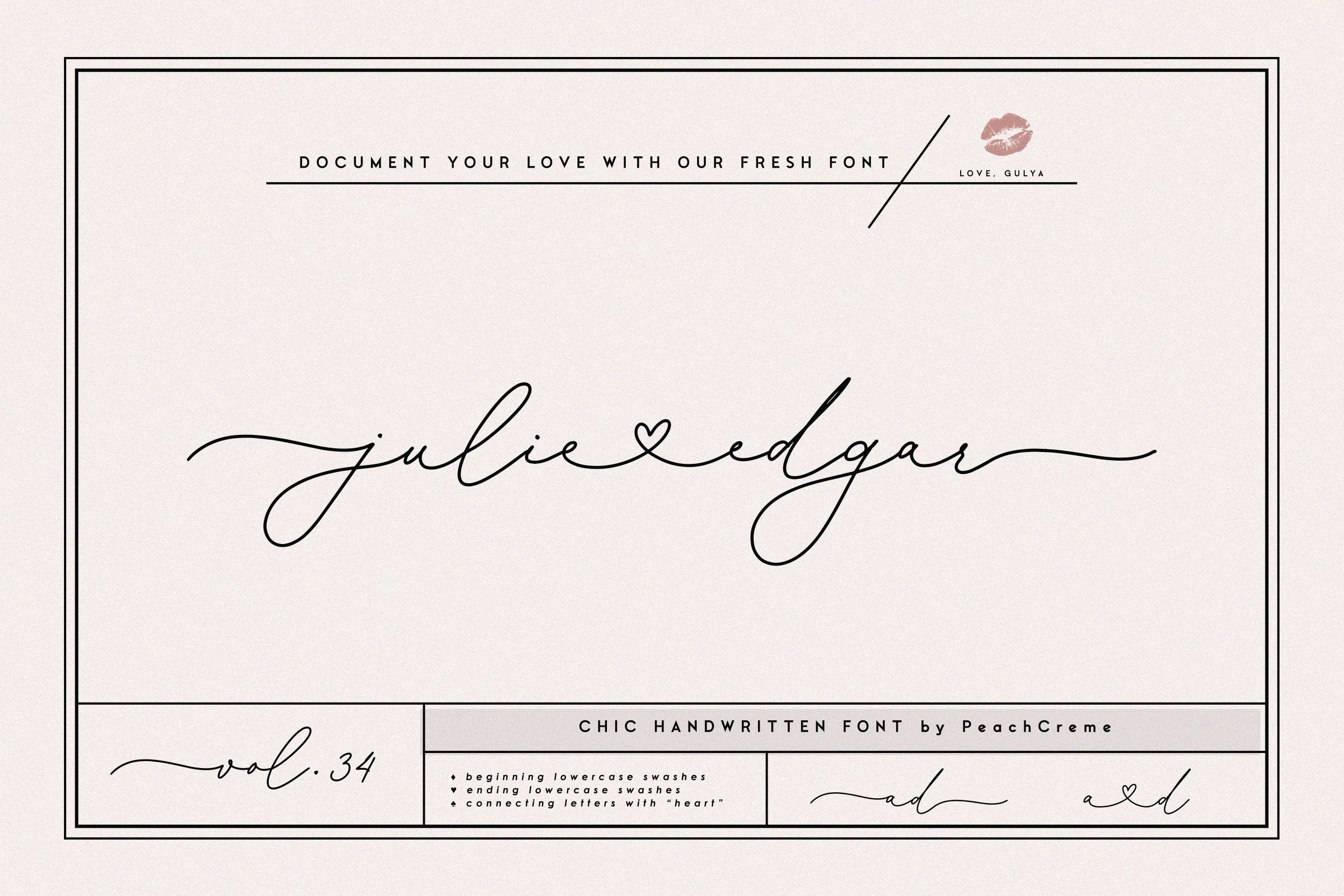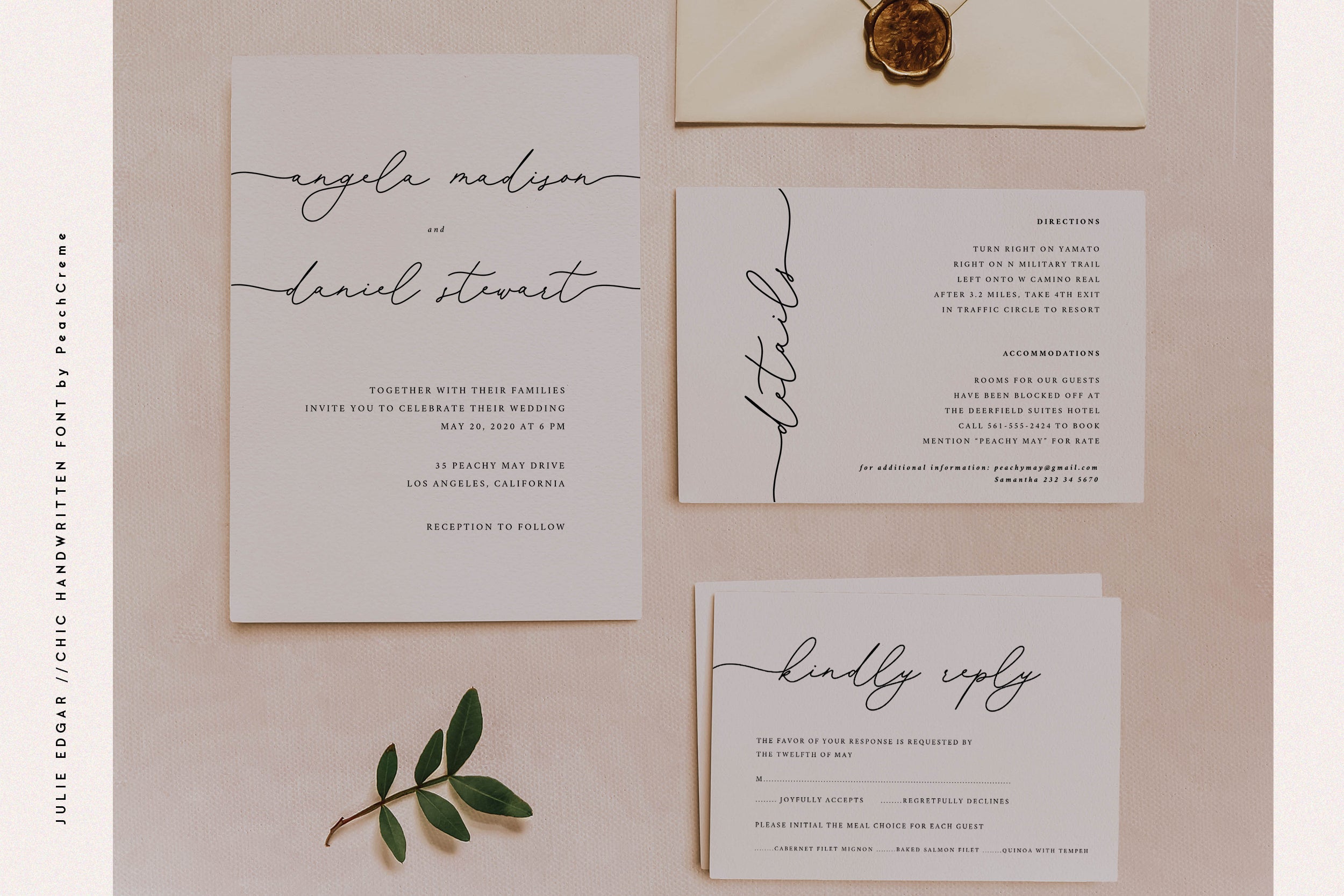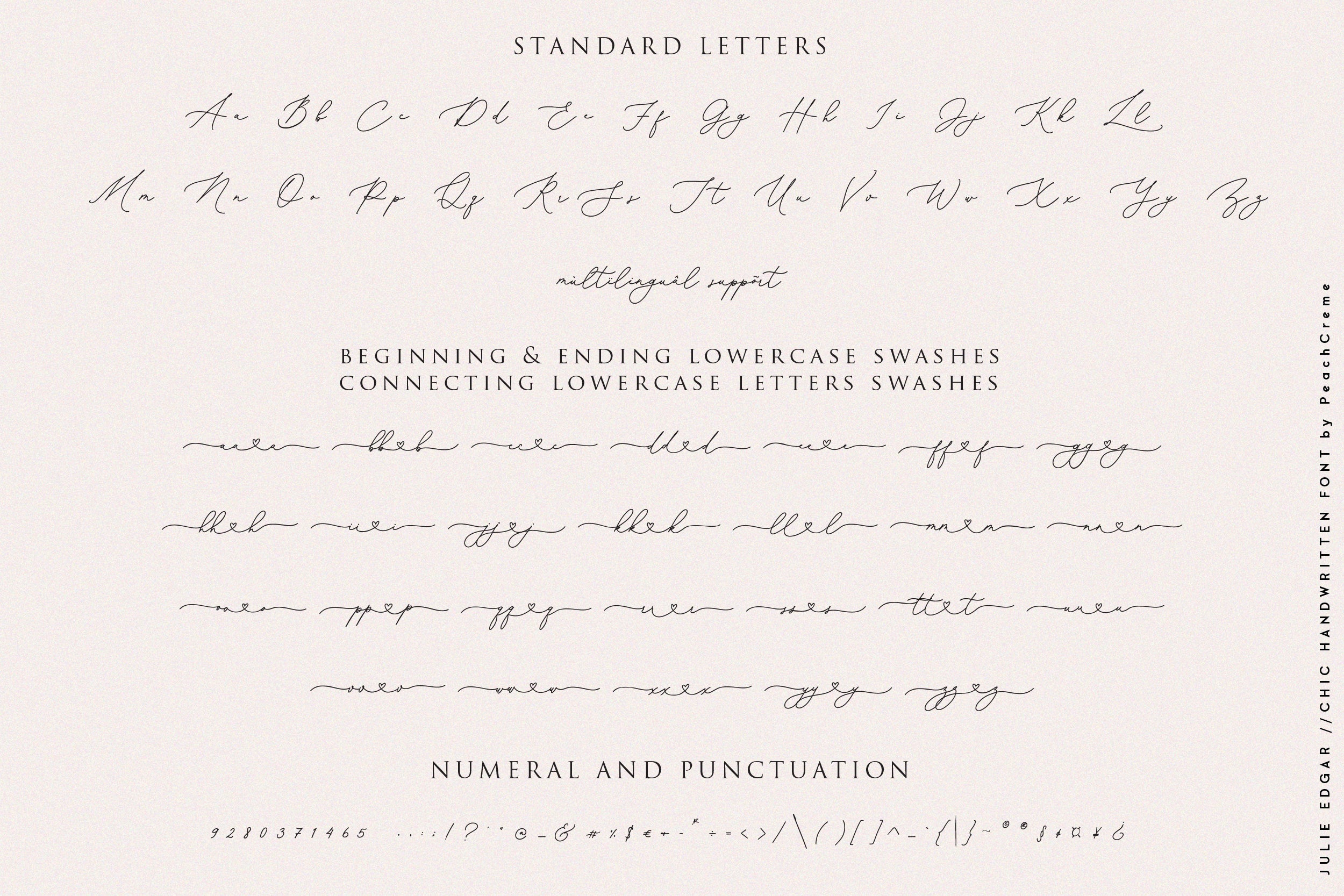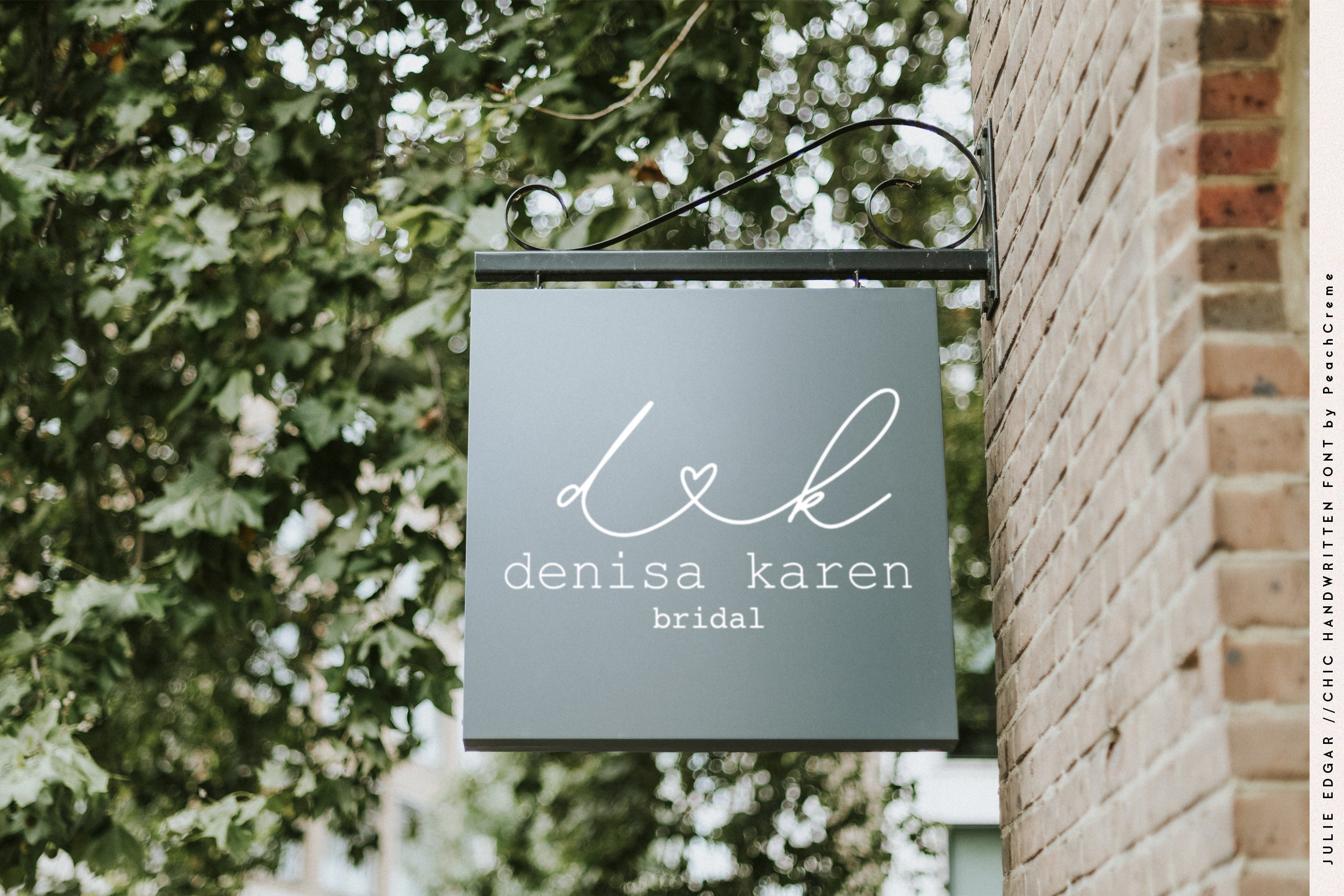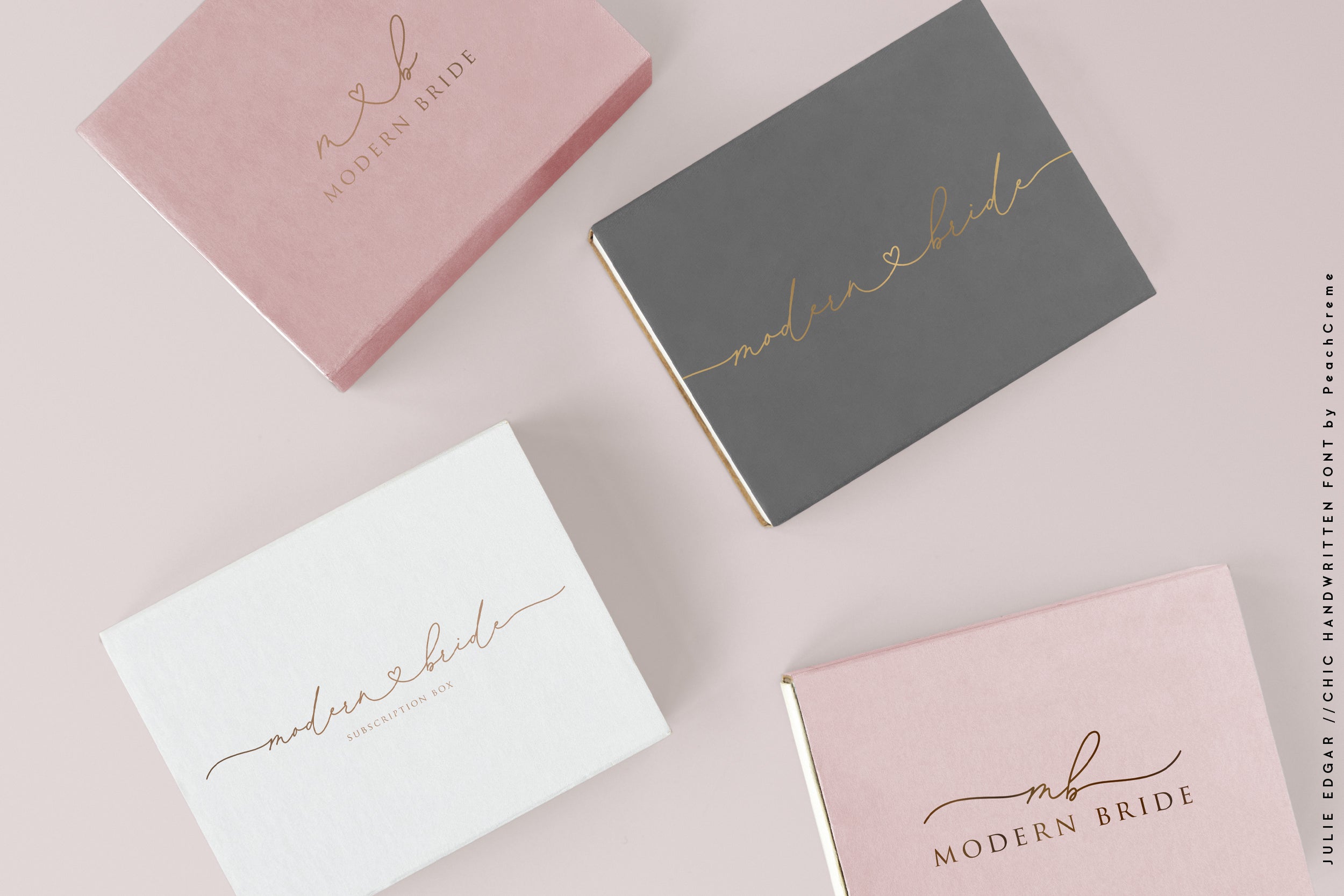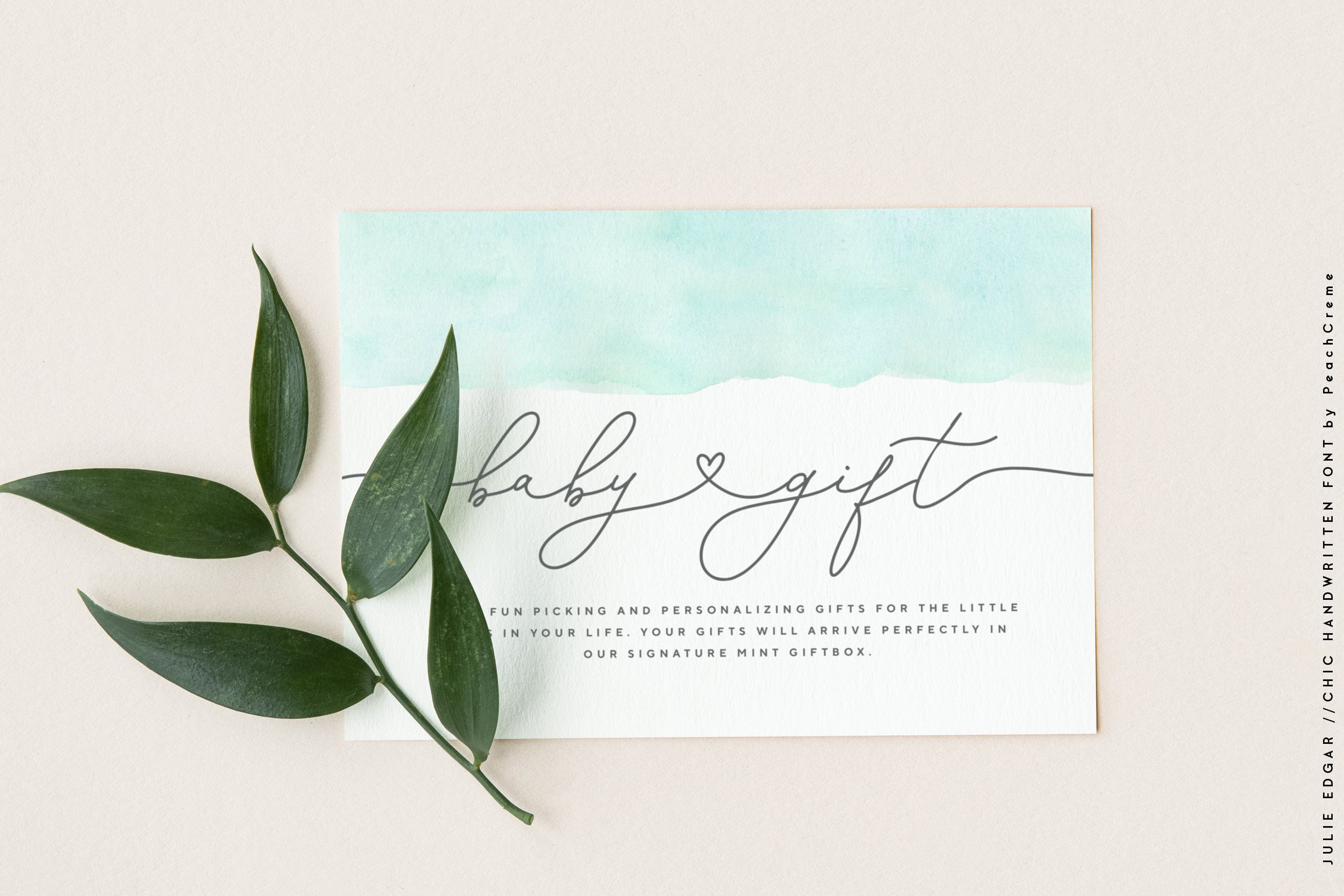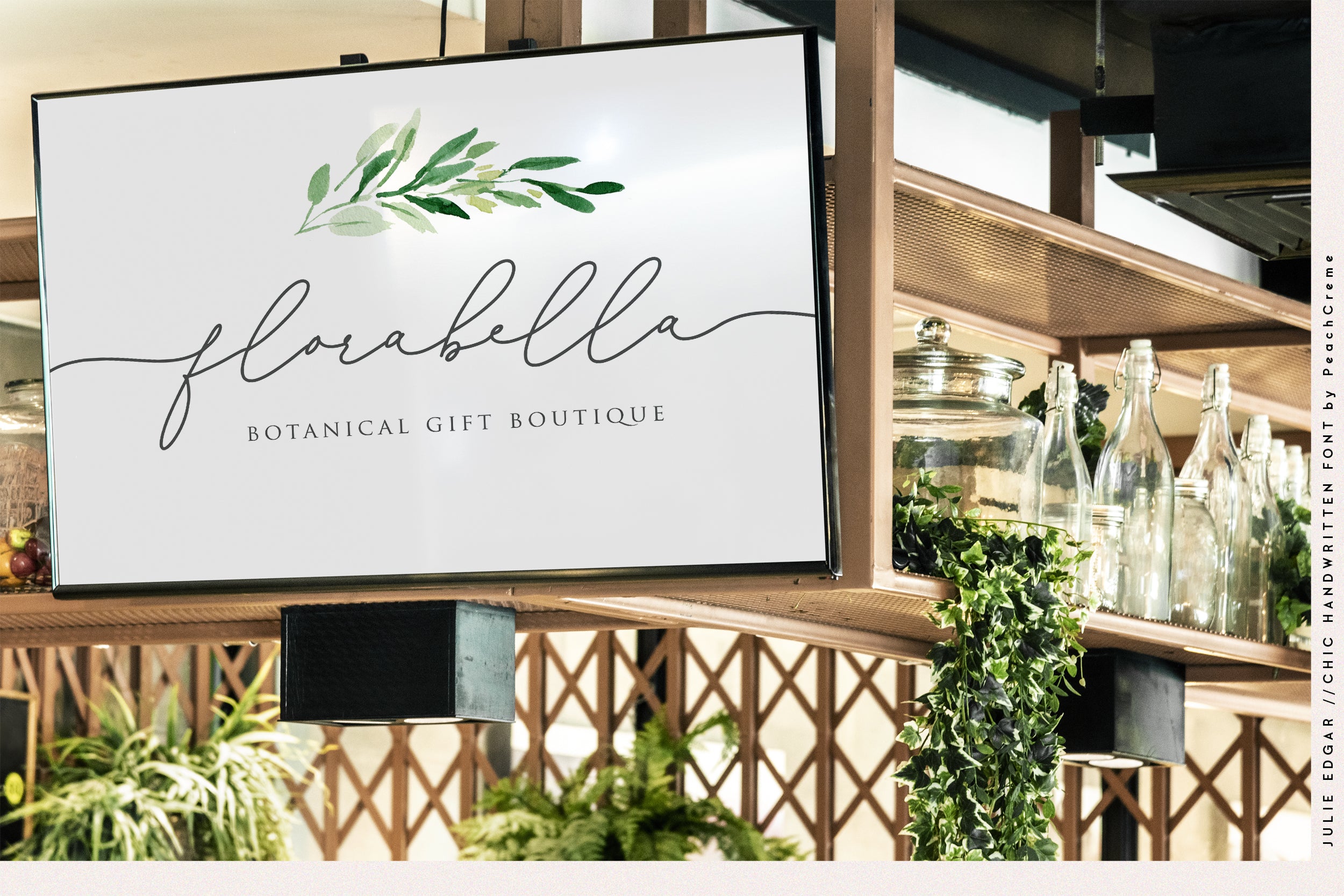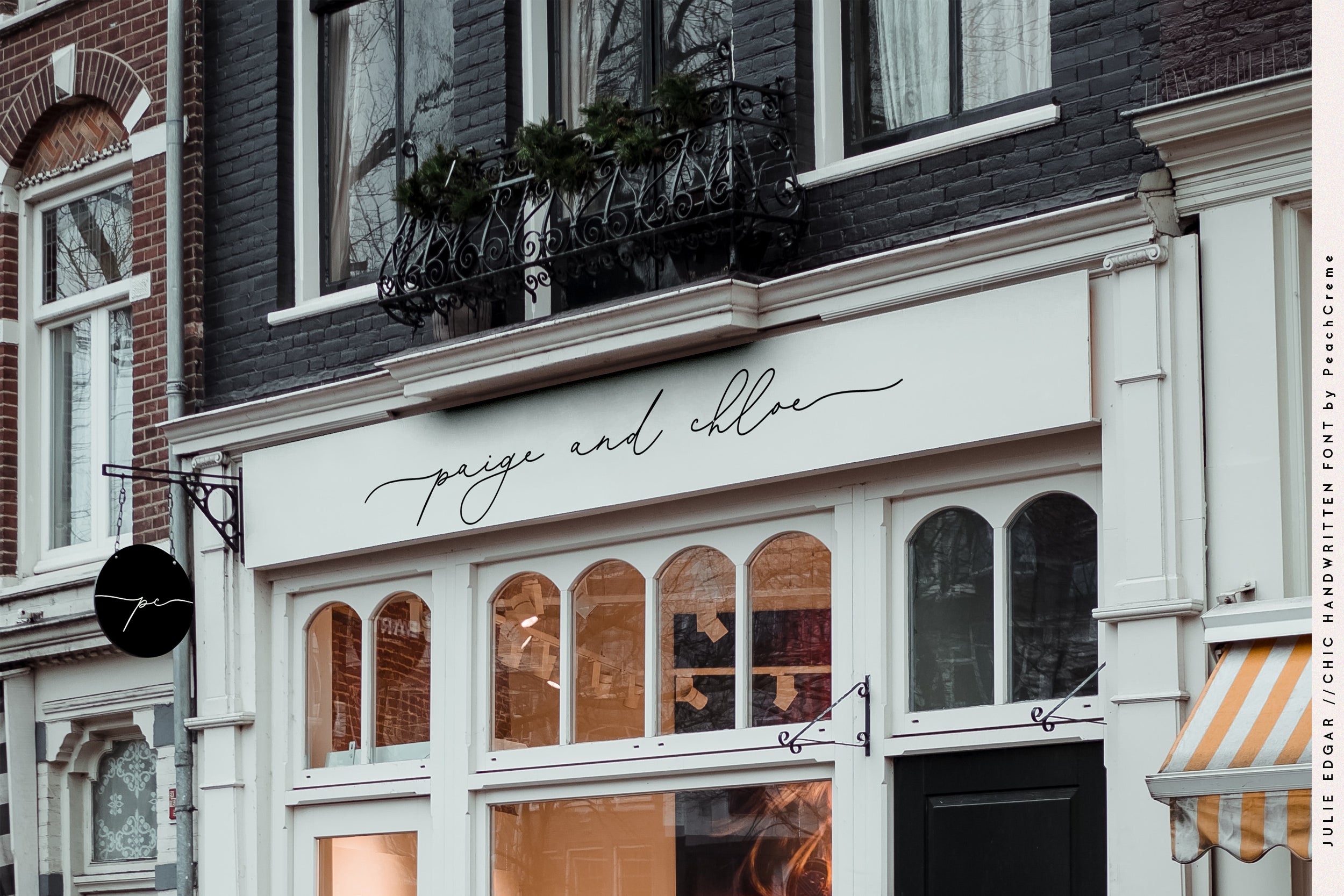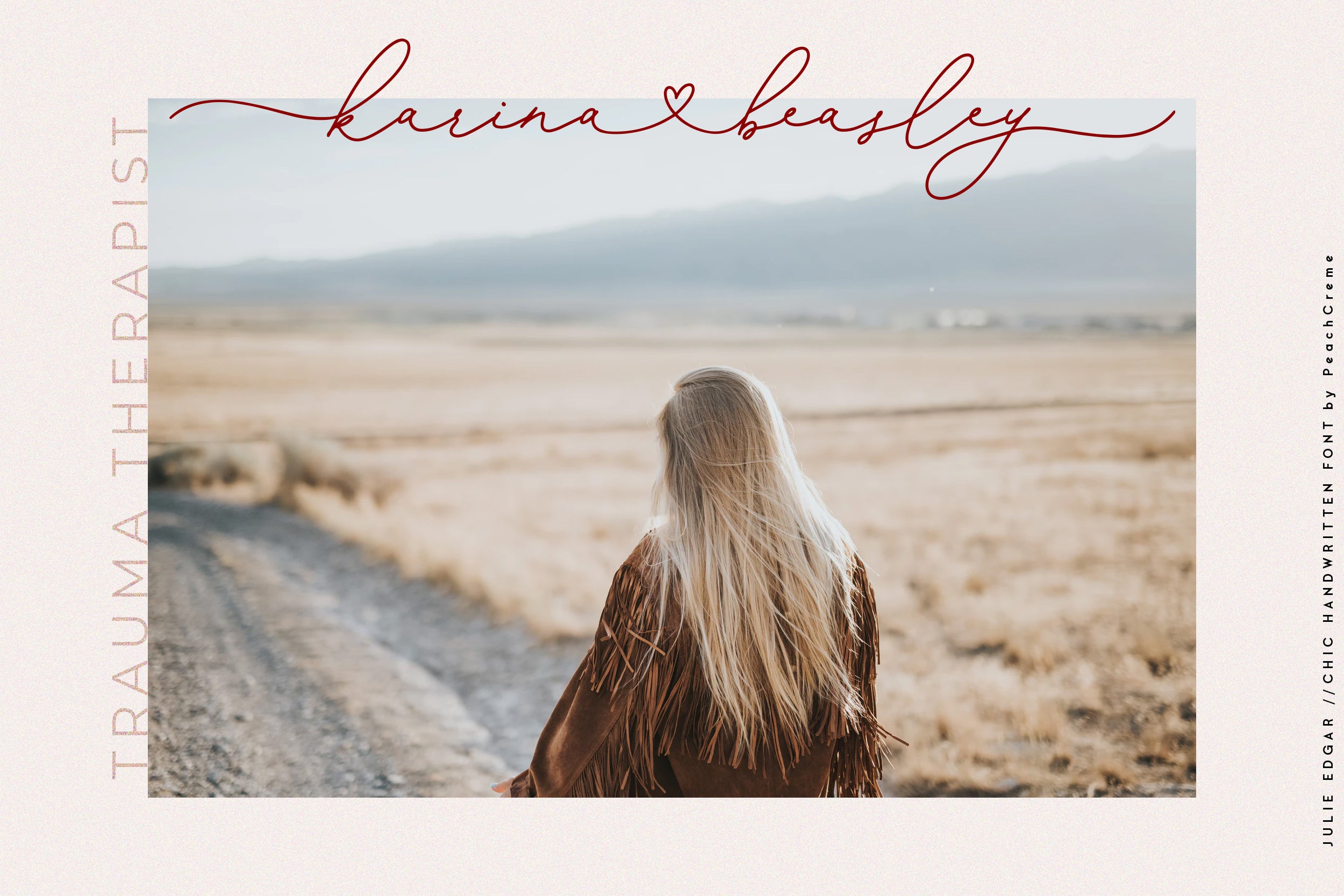
Julie Edgar Script Font
**MODERN CALLIGRAPHY VOL.34**
Julie Edgar is a lovely handwritten calligraphy font . It is perfect for branding, wedding invites and cards.
"Julie Edgar" includes full set of uppercase and lowercase letters, multilingual symbols, numerals, punctuation and ligatures.
Additionally, includes beginning and ending lowercase swashes and connecting lowercase "hearty" letters. Please, note that heart connects ONLY lowercase letters.